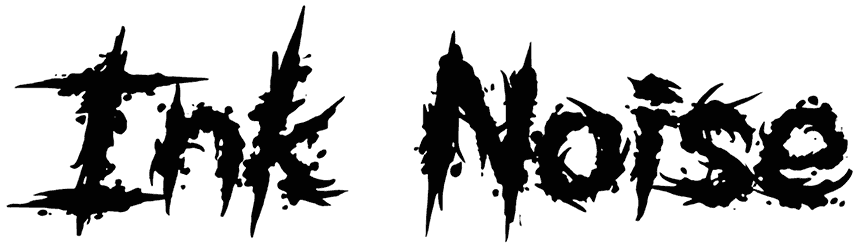
Ink Noise Font
Designed byKlinge Art
The panic in Ink Noise creates a screaming-like state and sounds like a warning sign. It can be the best option to implement your dark ideas.
In terms of metaphor and physical presence on stage, the decorative elements of this hardcore font give your texts a whole new level of credibility. So if you’re in the market for an intense writing theme for t-shirts or want to spice up your computer games, Ink Noise will do the trick.